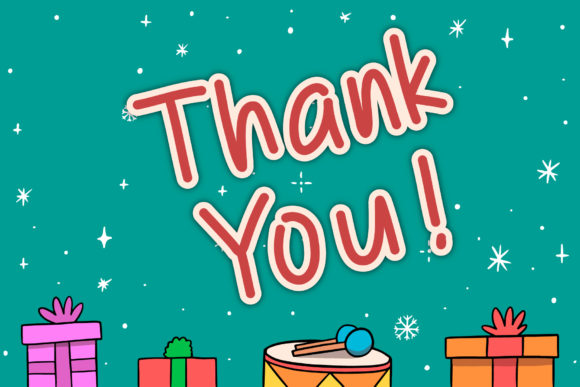
Introduction to Goody Font
Have you ever stared at a blank canvas, trying to bring your creative vision to life, only to be halted by the perfect font to match your idea? This is a common plight for designers, and it’s what makes discovering the right font such a thrill. For those in search of the perfect addition to their creative project, we’re excited to introduce you to the delightful Goody Font.
| 📌 Product Name | Goody Font |
| 👤 Author | Brown Cupple Design |
With its charming, handwritten style, the Goody Font is a high-quality design resource that’s sure to elevate your next project. Whether you’re working on a personal or professional design, this free download is a valuable asset to have in your toolkit. Its transparent background makes it easy to layer and manipulate, allowing you to get creative with your design.
Key Features of Goody Font
- High-quality design: Goody Font is a well-crafted font designed for creative projects, offering a unique aesthetic that can elevate any design.
- Transparent background: Goody Font features a transparent background, allowing designers to easily layer it over images or other design elements.
- High-resolution design: With a resolution of up to 300 DPI, Goody Font is suitable for use in high-quality print projects, such as business cards, brochures, and posters.
- Customizable: This font is highly customizable, allowing designers to adjust the size, color, and style to suit their specific design needs.
Honest Review: Goody Font
I recently had the chance to play around with the Goody Font, and I must say it’s been a game-changer for my creative projects. The free download was a huge plus, and I appreciate the transparent background that makes it easy to use in any design.
What works well for me is the high quality of the font itself – it’s crisp, clean, and looks great on any screen. The variety of styles and weights available is also a huge plus, allowing me to experiment with different looks and feels for my designs.
- ✨ High-quality design with a clean and crisp aesthetic
- ✨ Variety of styles and weights to choose from
- ✨ Transparent background for easy use
However, I did encounter a few limitations. The font is not as versatile as some other fonts I’ve used, and it may not be the best choice for complex or detailed designs. Additionally, the font can be a bit too playful for more formal or professional projects.
Overall, I’m impressed with the Goody Font and would definitely recommend it for smaller-scale creative projects or personal use. While it may not be the best choice for every design, it’s a great resource to have in your toolkit.
Tips for Getting the Most Out of Goody Font
Experiment with different font sizes, colors, and styles to create a unique and creative design. Use the font with a transparent background to create a seamless design. Also, consider combining the Goody Font with other design resources, such as graphics and images, to create a visually appealing design.
Common Use Cases for Goody Font
The Goody Font is ideal for a variety of creative projects, including logos, branding materials, social media graphics, and presentations. Its high-quality design and transparent background make it a versatile design resource for any project.
Yes, the Goody Font includes a transparent background option, allowing you to easily place the font on top of any image or design without the background interfering. This feature is particularly useful for creative projects that require a seamless integration of text and graphics.